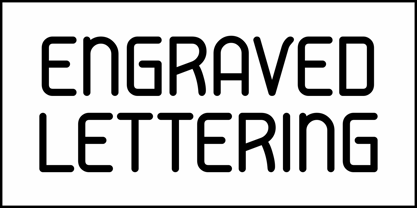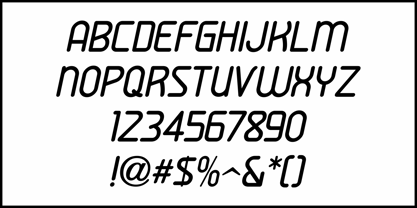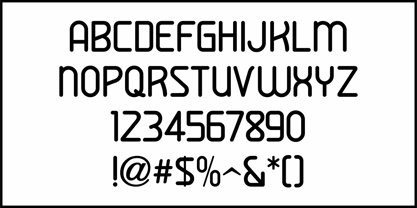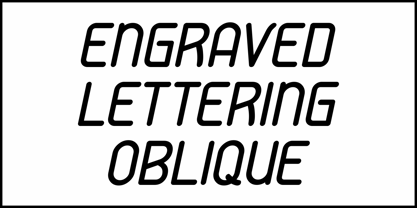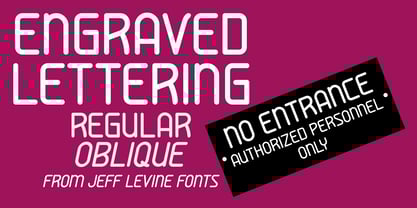
Engraved Lettering JNL
by Jeff Levine
The Engraved Lettering JNL Font Family was designed by Jeff Levine and published by Jeff Levine. Engraved Lettering JNL contains 2 styles and family package options. More about this family
A 1960 catalog brochure from Spencer Industries showcased engraved stock signs featuring a typeface they called Duquesne. This interesting sans serif design with rounded terminals inspired Engraved Lettering JNL, which is available in both regular and oblique versions.
Spencer Industries has been manufacturing business and architectural signage for over 150 years and is based in Philadelphia, Pennsylvania.